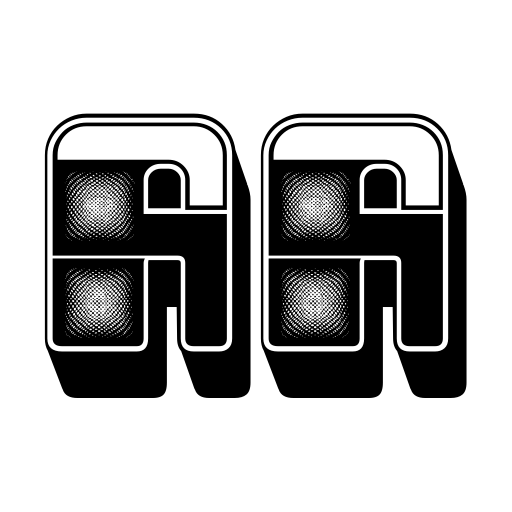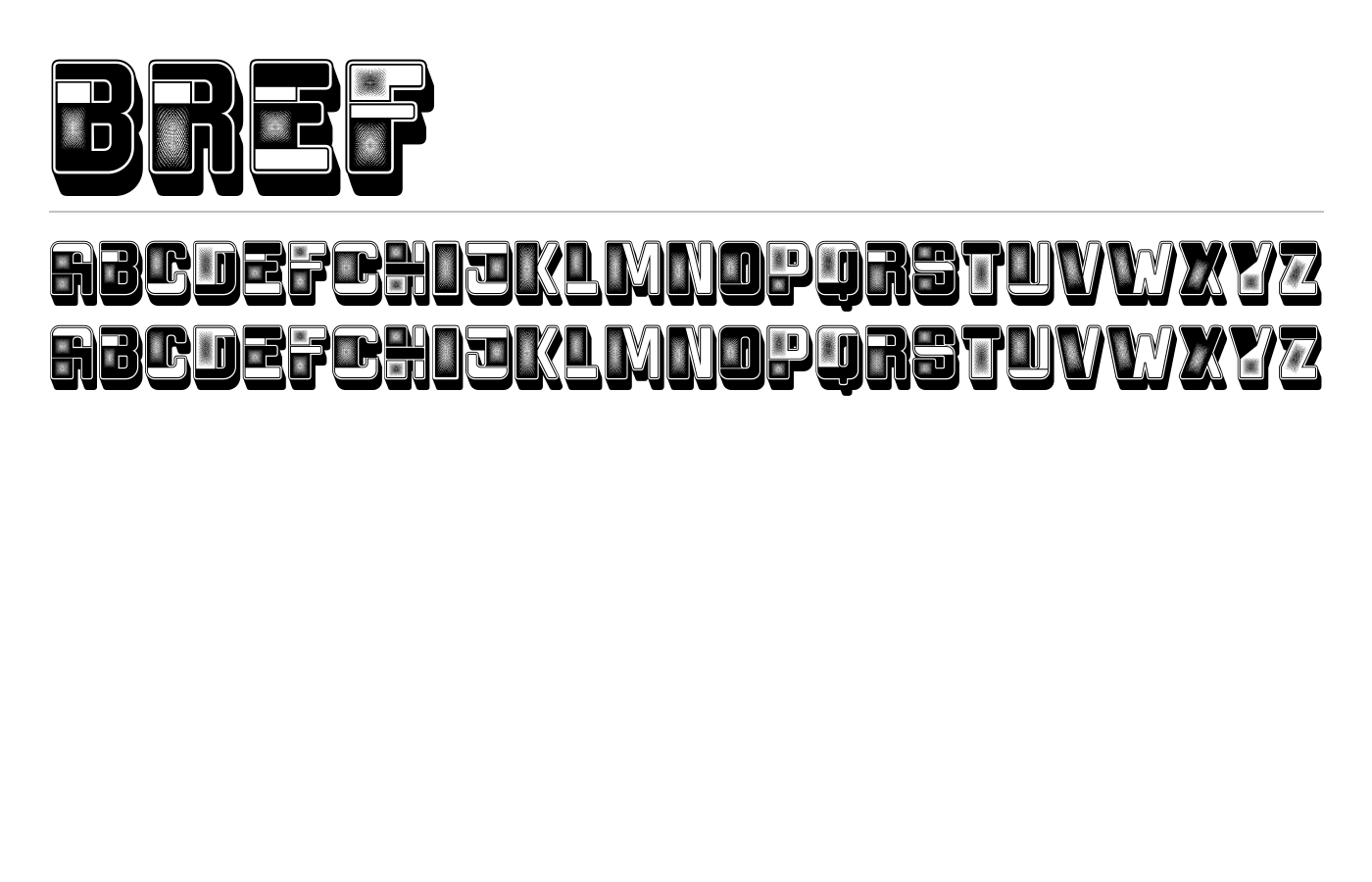
Bref Font is a bold, decorative sans serif typeface with a distinct retro-futuristic vibe created by its unique layered shadow and halftone pattern effects. Its strong, blocky letterforms with sharp edges and high contrast shadows make it perfect for eye-catching headlines, logos, and posters where a dynamic and vintage-inspired style is desired. This font works especially well in designs that aim to combine modern boldness with nostalgic flair.
Bref Font
About Bref Font